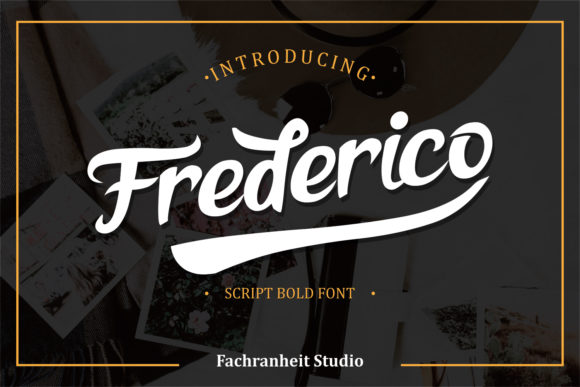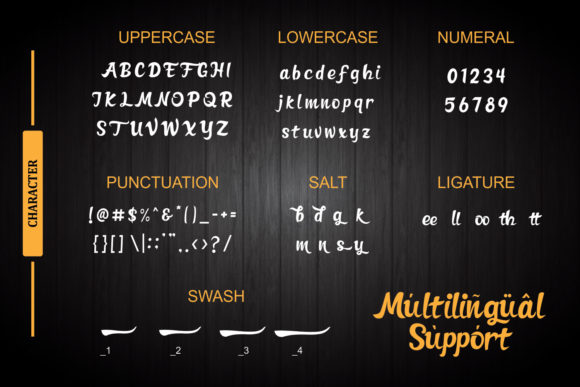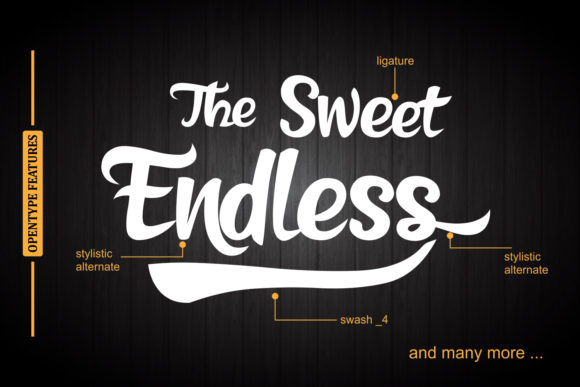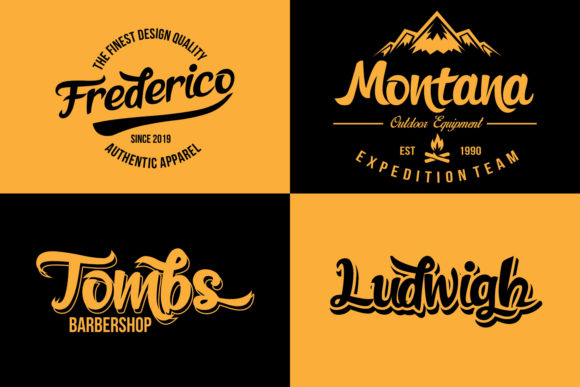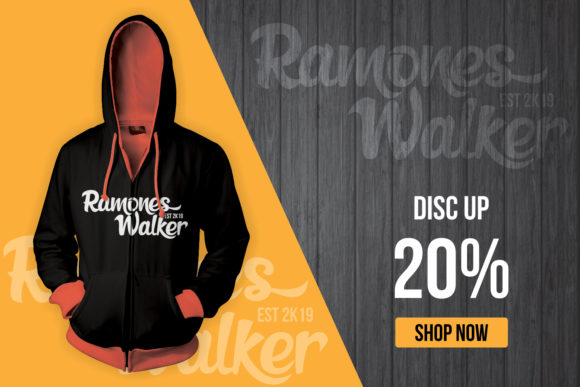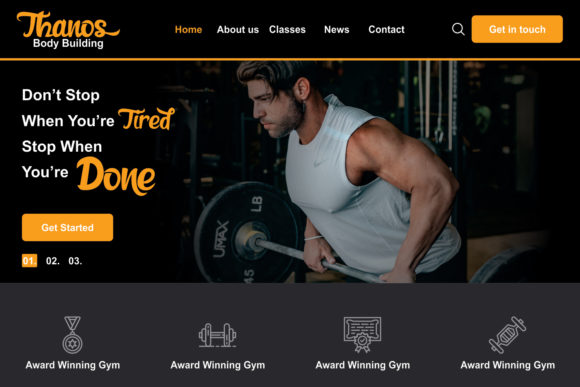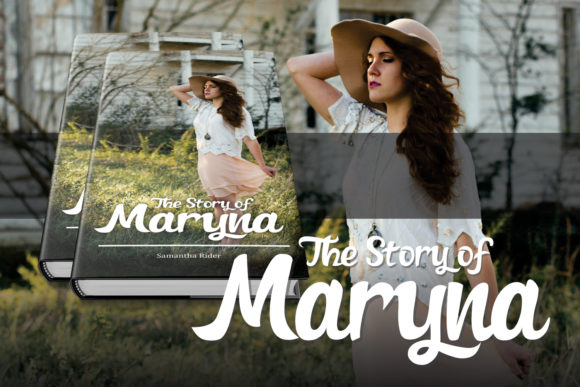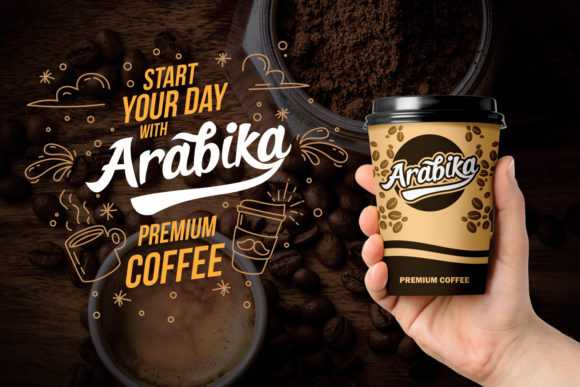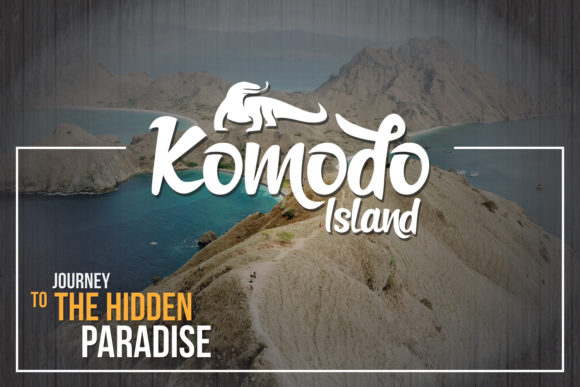
HomeScript FontsFrederico Font Script Fonts Frederico Font FacebookXPinterestWhatsApp Frederico Font Poster 2 Frederico Font Poster 3 Frederico Font Poster 4 Frederico Font Poster 5 Frederico Font Poster 6 Frederico Font Poster 7 Frederico Font Poster 8 Frederico Font Poster 9 Frederico Font Poster 10 Frederico Font Poster 11 About Frederico Font Frederico is a natural bold script font with a vintage feel. Use it to turn any design idea into a true standout! DOWNLOAD ON CREATIVE FABRICAThis font is sold and delivered by Creative Fabrica. Font Canyon may earn a commission if you buy through this link. People also explored Durango Western Mytchell Trujillo Font Royseen Font High Springs Font Lysander Font Pocket Notebook Zoom Demon Hunter Font Pocket Notebook & Brush Pretty Posies Too Font 403 0 TagsFrederico Font Previous articleAntagonist FontNext articleCherlina Font LEAVE A REPLY Cancel reply Comment: Please enter your comment! Name:* Please enter your name here Email:* You have entered an incorrect email address! Please enter your email address here Website: Save my name, email, and website in this browser for the next time I comment. Personal Use Free Fribash Personal Use Free Read more about this font Mike Ferrari 16017 Personal Use Free Read more about this font Splatter Splash Personal Use Free Read more about this font Hearted Personal Use Free Read more about this font BLOG The 10 Best Handwriting Fonts to Add Personality to Your Designs 10 of the Best Handwriting Fonts for Adding Personality to Your Designs There will undoubtedly be no other better choice than handwriting fonts to give... Transform Your Website: Elevate Your Typography with 7 Best Web Font Generators Where to Buy American Fonts Online in 2024 Top 10 Handwritten Fonts That Elevate Your Designs